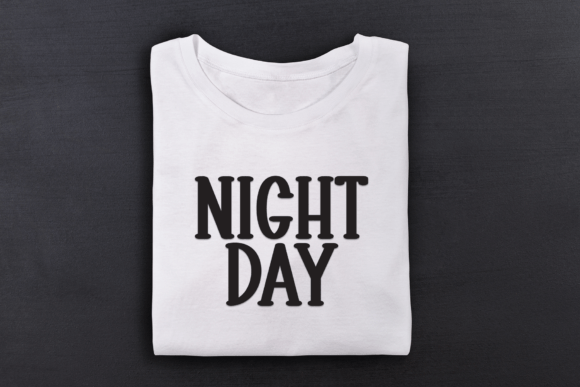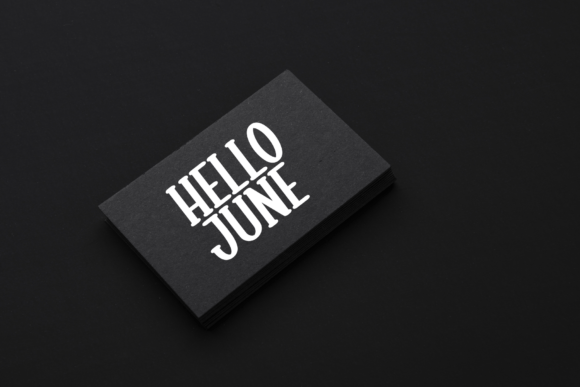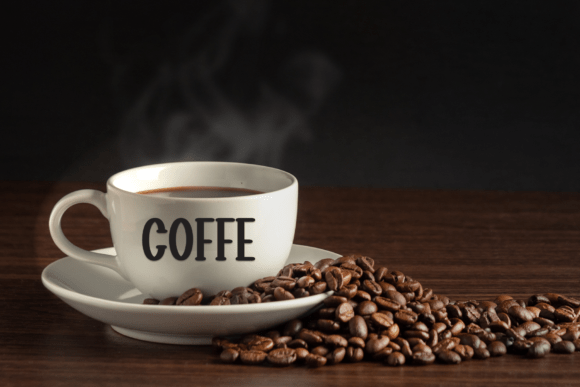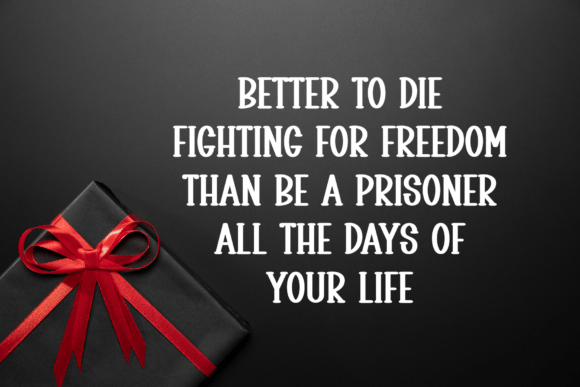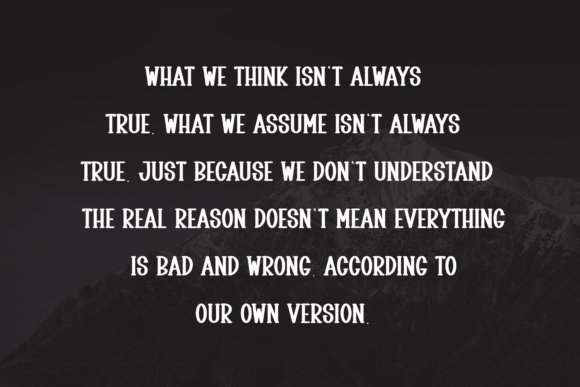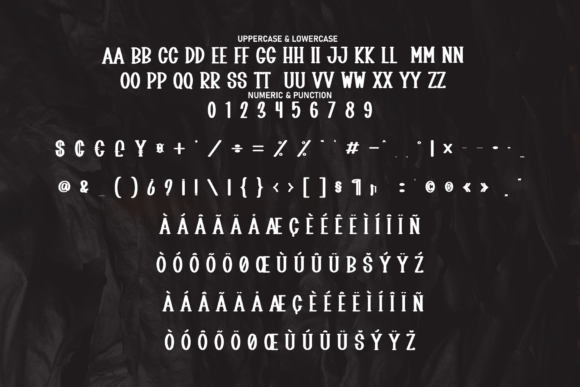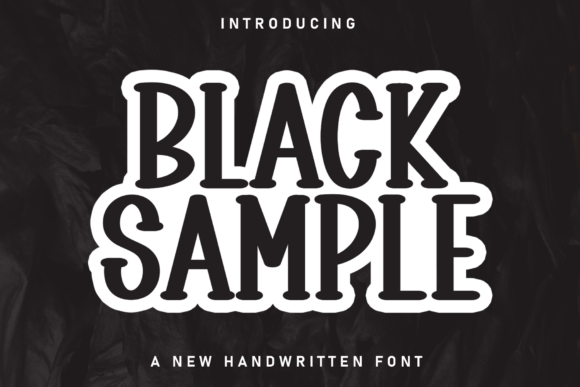
Introducing Black Sample Font: The Ultimate Bold Handwritten Display Font
Are you tired of using the same old fonts for your designs? Look no further than Black Sample Font, a bold handwritten display font with a retro twist and strong presence. This font is perfect for designers and crafters who want to add a touch of personality and style to their projects. With its chunky letterforms and vintage-inspired styling, Black Sample Font is great for creating eye-catching titles, T-shirt designs, signage, posters, logos, and social media graphics.
The Power of Black Sample Font
Black Sample Font is more than just a font – it’s a statement piece. Its playful yet powerful aesthetic makes it a perfect choice for both casual and standout projects. The font’s bold and chunky letterforms are sure to grab attention, while its vintage-inspired styling adds a touch of sophistication and elegance. Whether you’re designing a logo, creating a poster, or crafting a social media graphic, Black Sample Font is the perfect choice.
What Makes Black Sample Font So Versatile?
One of the things that sets Black Sample Font apart is its versatility. This font can be used for a wide range of projects, from casual designs like T-shirt graphics and social media posts, to more formal projects like logos and signage. The font’s bold and playful aesthetic makes it perfect for designs that need to stand out, while its vintage-inspired styling adds a touch of sophistication and elegance.
Black Sample Font is a must-have for designers and crafters who want to add a touch of personality and style to their projects. The font’s easy-to-read and bold letterforms make it perfect for creating eye-catching designs that are sure to grab attention. Whether you’re a professional designer or a hobbyist crafter, Black Sample Font is the perfect choice for anyone who wants to create unique and stylish designs.
Key Features of Black Sample Font
• Bold Handwritten Display Font: Black Sample Font is a bold handwritten display font with a retro twist and strong presence.
• Chunky Letterforms: The font’s chunky letterforms are perfect for creating eye-catching designs that are sure to grab attention.
• Vintage-Inspired Styling: The font’s vintage-inspired styling adds a touch of sophistication and elegance to any design.
• Perfect for a Wide Range of Projects: Black Sample Font is perfect for a wide range of projects, from casual designs like T-shirt graphics and social media posts, to more formal projects like logos and signage.
Tips and Tricks for Getting the Most Out of Black Sample Font
• Experiment with Different Colors: Black Sample Font looks great in a wide range of colors, so don’t be afraid to experiment and find the perfect color for your design.
• Use it with Other Fonts: Black Sample Font pairs well with a wide range of other fonts, so feel free to get creative and experiment with different font combinations.
• Add Texture and Patterns: Adding texture and patterns to your design can help to give it a more dynamic and interesting look.
Black Sample Font is a bold handwritten display font with a retro twist and strong presence. With its chunky letterforms and vintage-inspired styling, it’s perfect for creating eye-catching titles, T-shirt designs, signage, posters, logos, and social media graphics. Whether you’re a designer or crafter, Black Sample Font is a must-have font that is sure to add a touch of personality and style to any project.